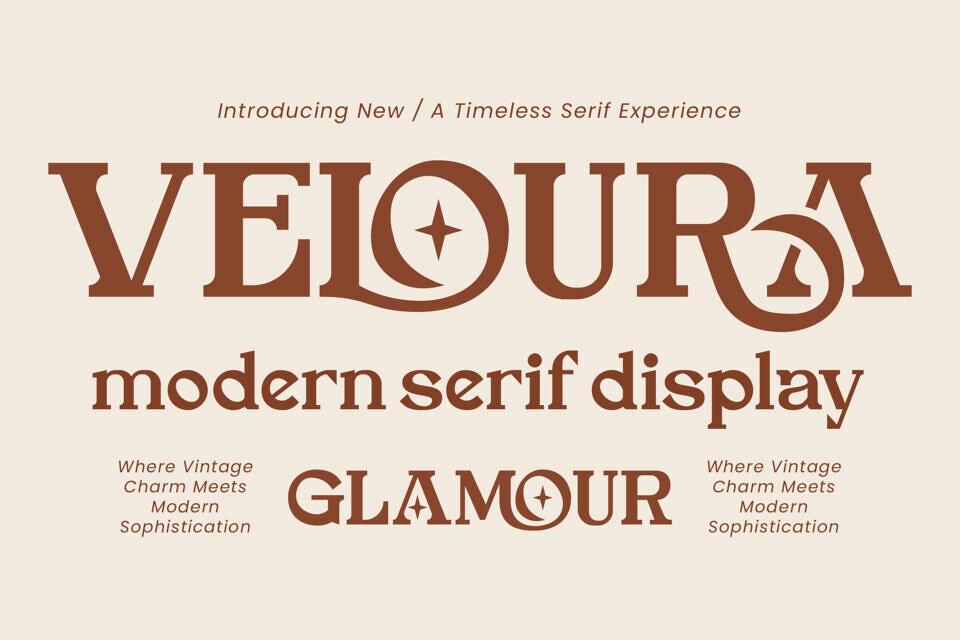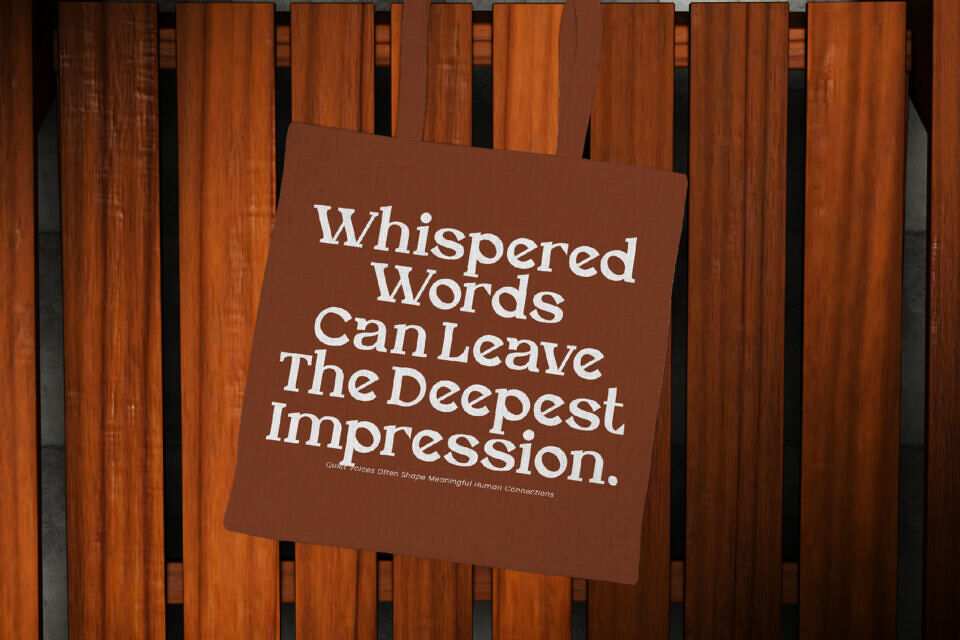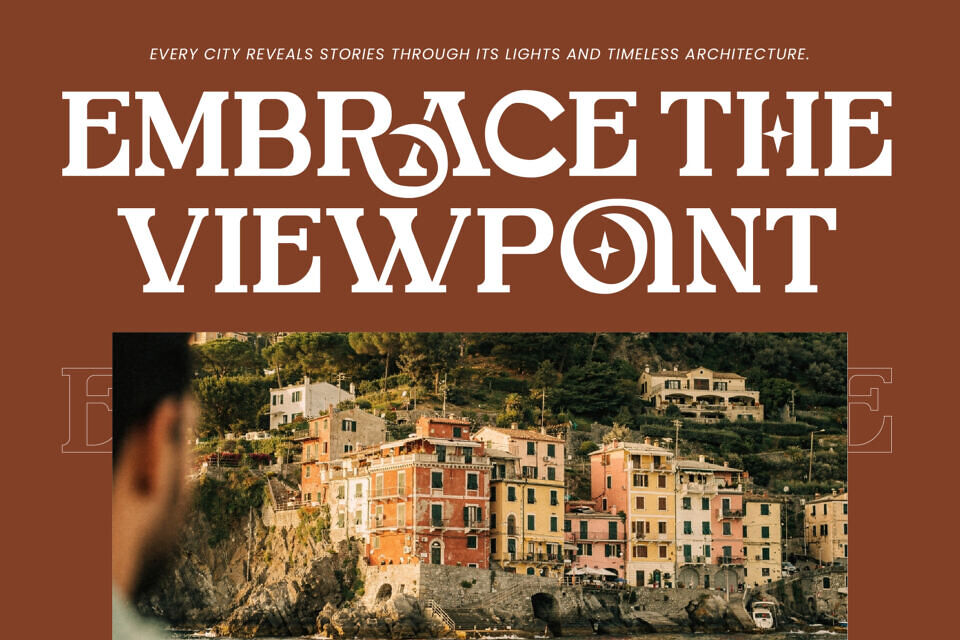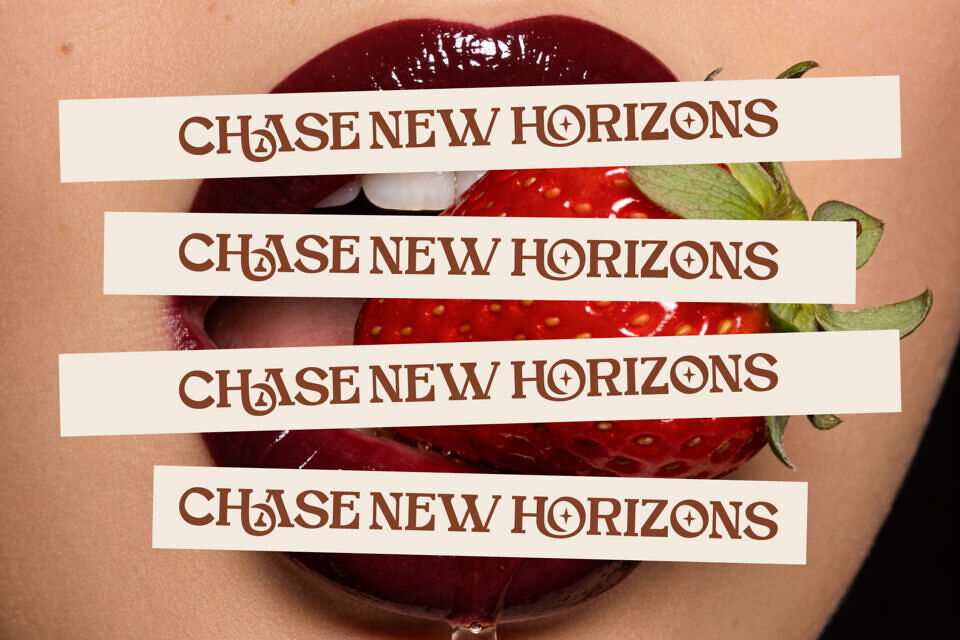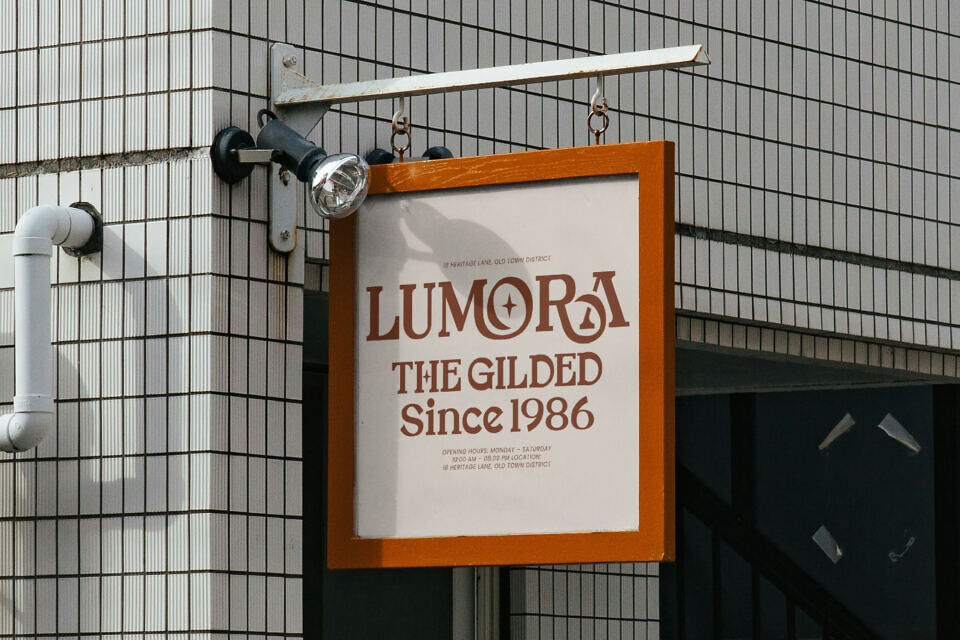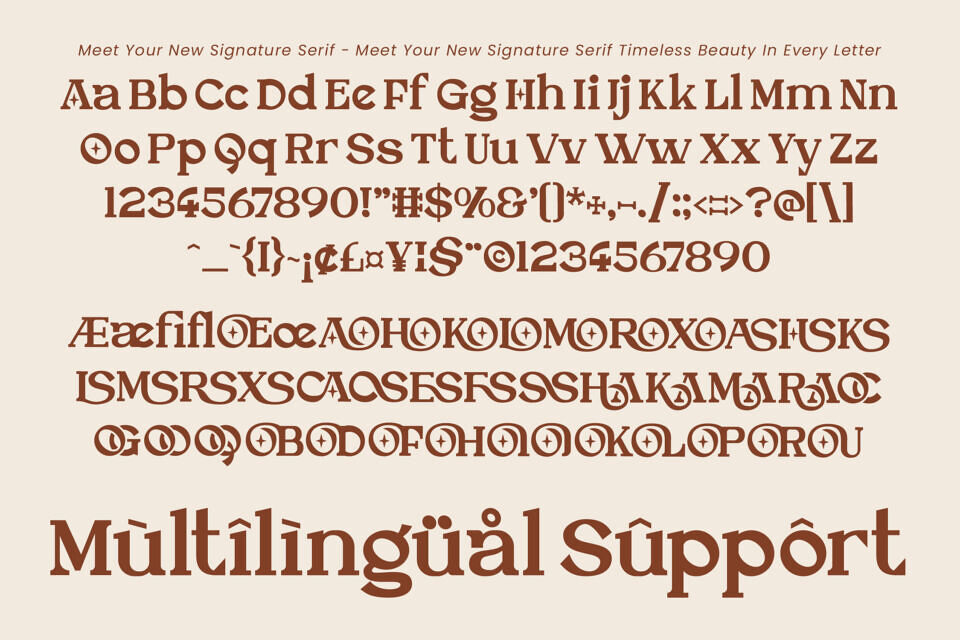
Veloura is a modern serif display font that blends vintage charm with contemporary sophistication. Carefully crafted with elegant proportions, refined curves, and distinctive decorative details, this typeface delivers a luxurious and timeless aesthetic that feels both classic and fresh.
Its distinct character suits designers seeking a high-end serif font for branding, editorials, and displays. With a mix of classic glamour and modern flair, Veloura brings a refined balance to logos, packaging, and luxury brands, creating a lasting visual impression with ease.